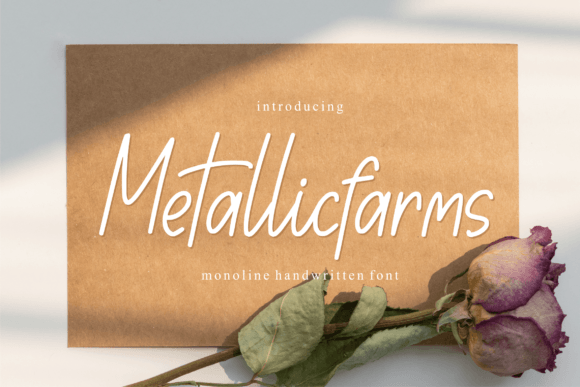
**Metallicfarms: The Font that Will Make Your Designs Shine**
Are you ready to add a touch of luxury to your designs? Look no further than Metallicfarms, a stunning monoline handwritten font that will elevate your creations to new heights.
With its elegant curves and charming imperfections, Metallicfarms is perfect for adding a personal touch to any project. Whether you're working on product packaging, branding, magazines, social media, or wedding invitations, this font will make your words stand out from the crowd.
**Why Metallicfarms?**
* **Unleash your creativity:** Metallicfarms's versatile style gives you endless possibilities for expressing yourself.
* **Make a statement:** This font is bold, confident, and sure to turn heads.
* **Add a touch of sophistication:** Metallicfarms's metallic finish will give your designs a touch of luxury.
* **Perfect for any occasion:** Whether you're creating a logo, a social media post, or a wedding invitation, Metallicfarms is the perfect choice.
**Experience the Magic of Metallicfarms Today**